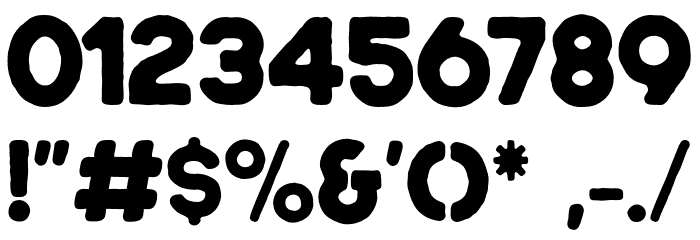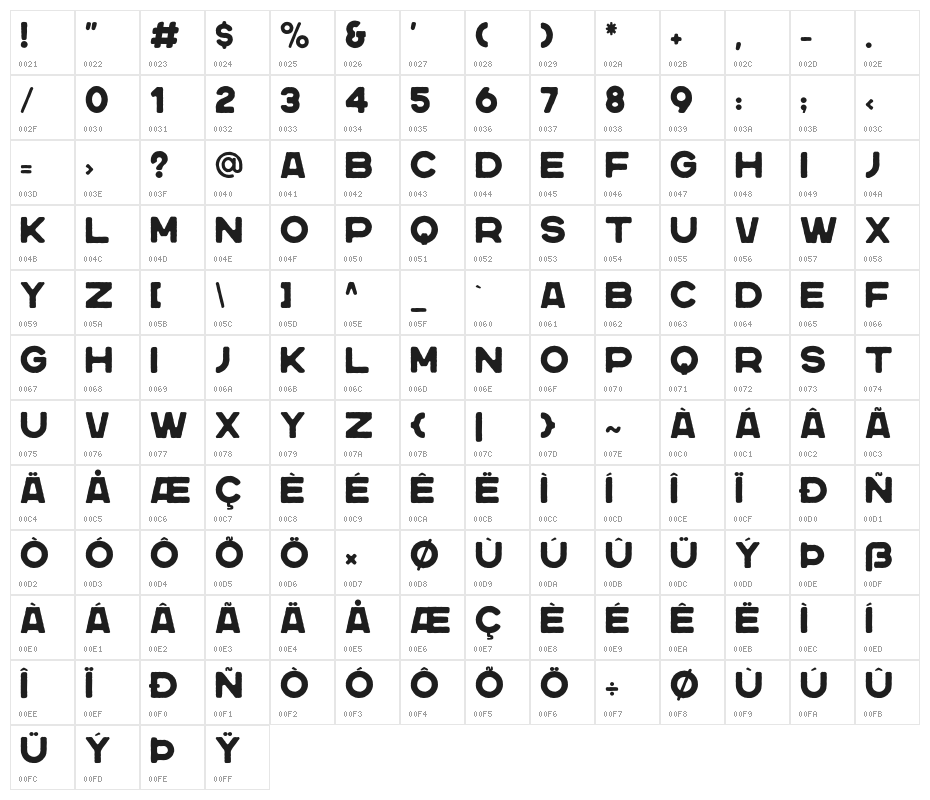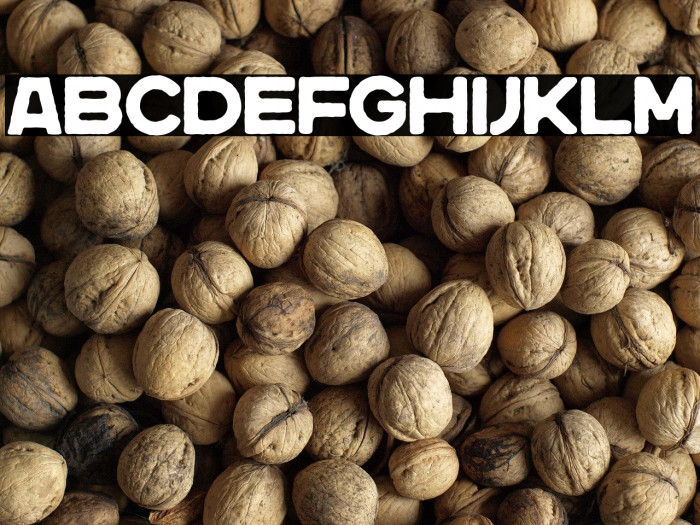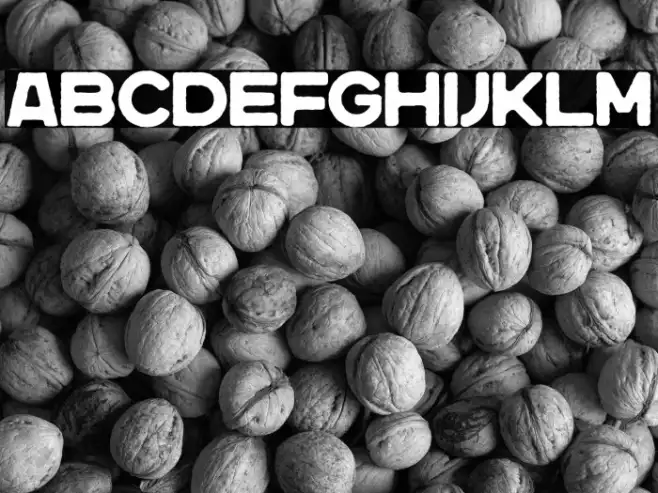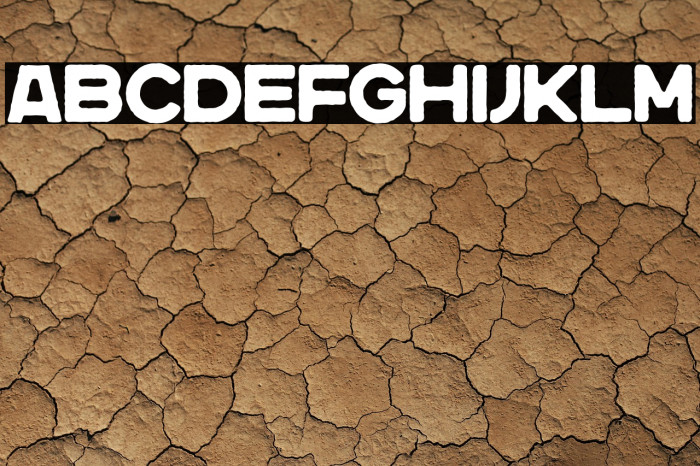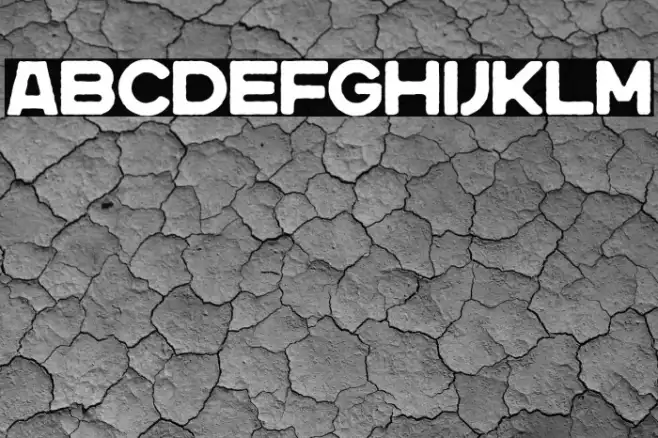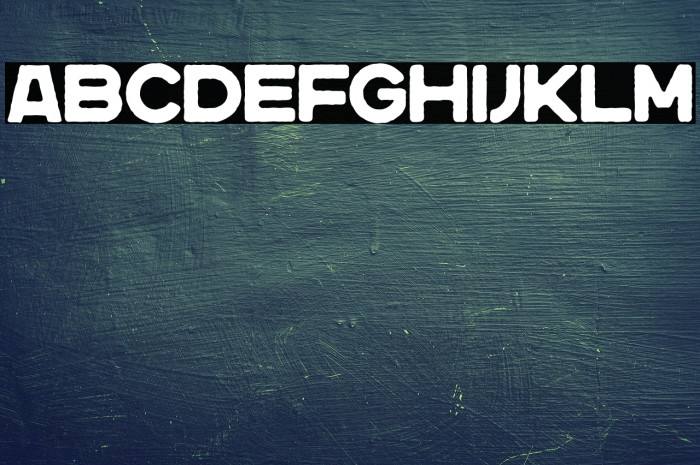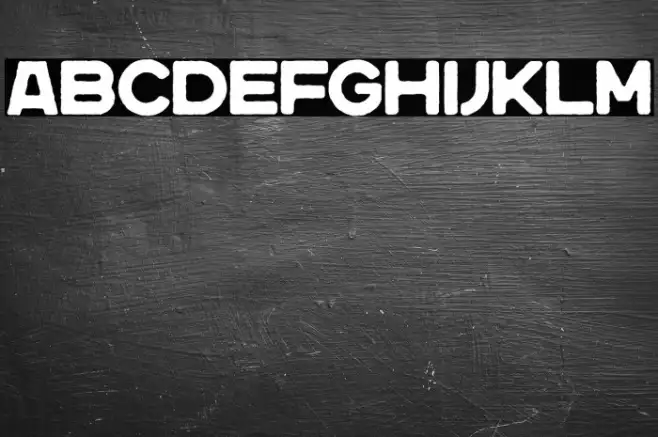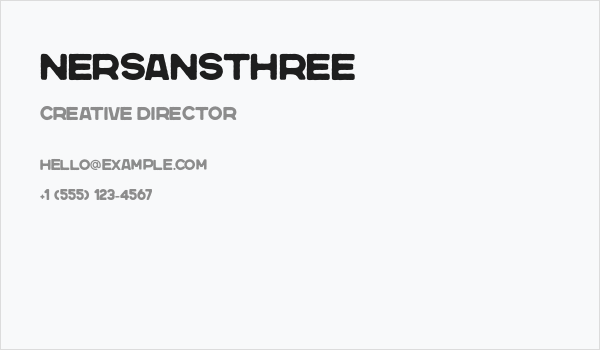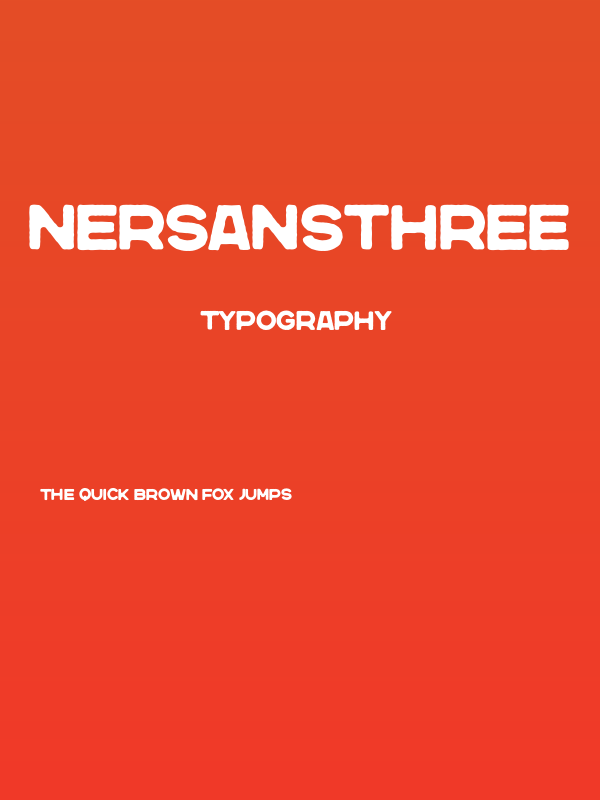
NersansThree Font
NersansThree Description
This font features bold, rounded characters with a playful and robust appearance. The letters are uniformly thick, giving a strong presence on the page. The rounded edges soften the overall look, making it approachable and friendly. The numbers and special characters maintain the same boldness and rounded style, ensuring consistency across all elements. This font is ideal for projects that require a strong yet approachable aesthetic, such as children's books, playful branding, or eye-catching headlines.
| Overall Style | Playful, Modern |
| Proposed Projects | Ideal for children's books, playful branding, and eye-catching headlines. |